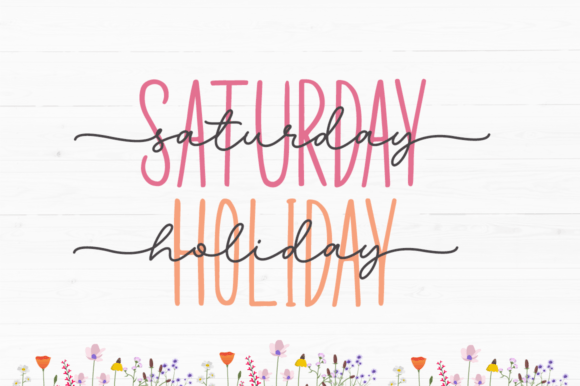
Beautiful Wildflower Duo Font
Beautiful Wildflower consists of two fonts designed to complement each other perfectly. Together or apart, these fonts are ideal for adding a stylish, cheerful touch to your crafts. Beautiful Wildflower is a PUA code which means you can access all the glyphs and swashes easily!